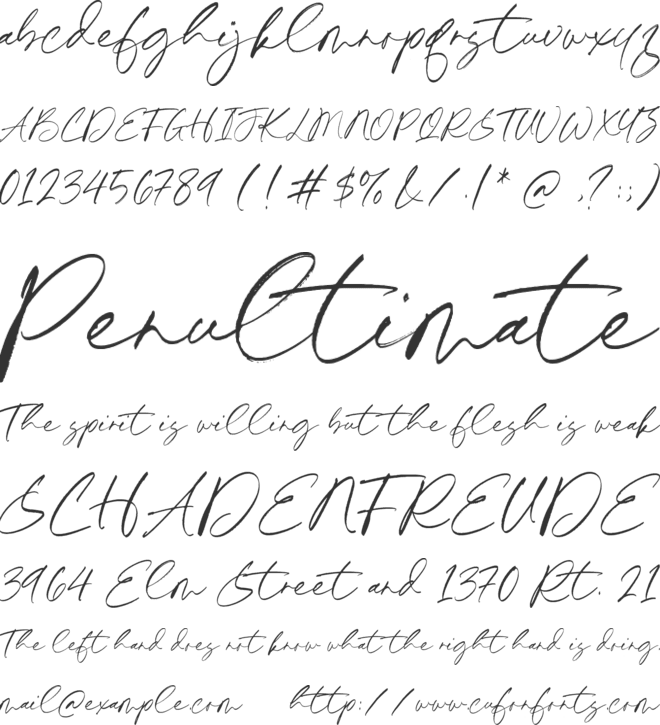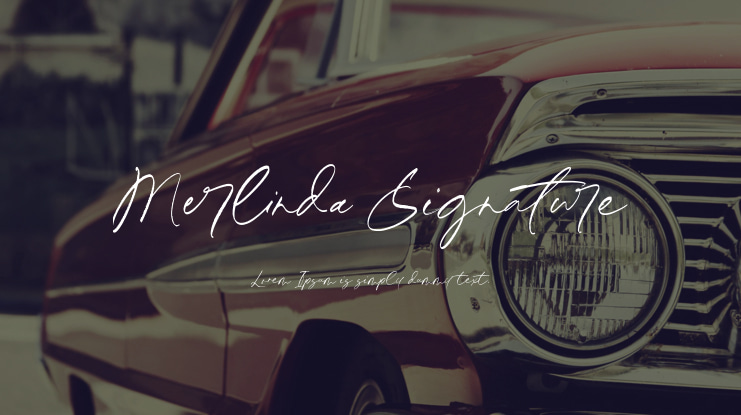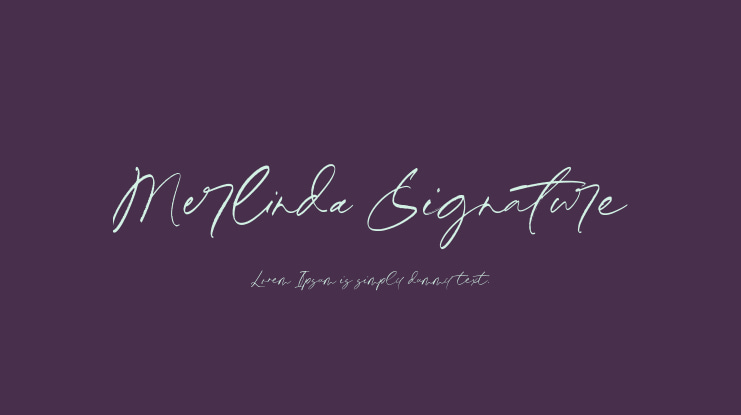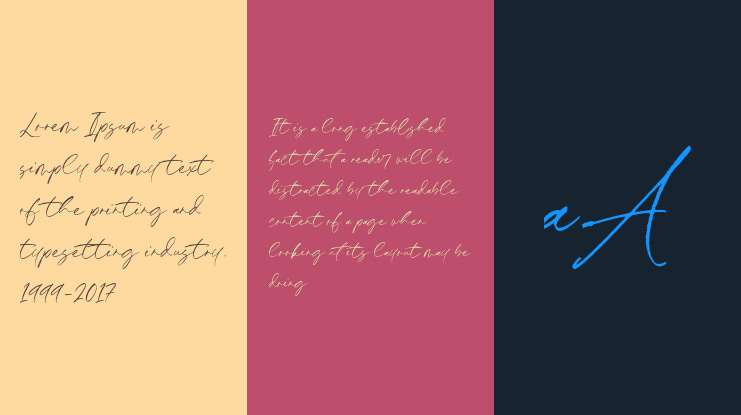
Timur Type Studio
Introducing the Merlinda Signature Font by Timurtype Studio! This luxurious and elegant Signature Brush Font is the perfect choice for your design projects. Its fluid and graceful letterforms beautifully mimic a handcrafted signature, exuding sophistication. The gentle brush strokes and subtle variations in line weight create a natural and organic feel, adding authenticity to your work. The font also includes stylish ligatures for a unique touch. Whether you're going for a refined, upscale look or a romantic, sentimental feel, the Merlinda Signature font offers versatility and refinement. Elevate your designs with the timeless beauty of this exquisite font.